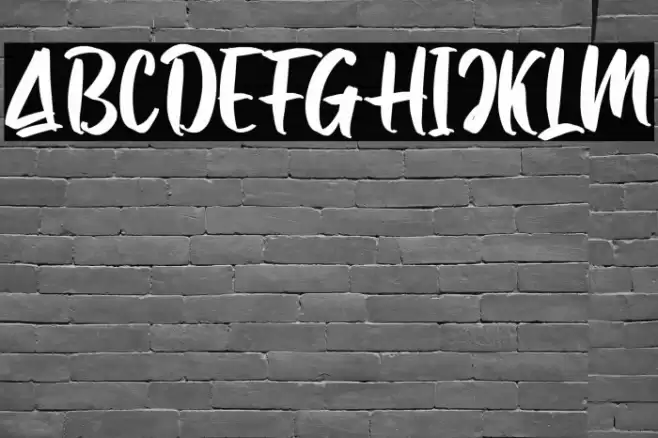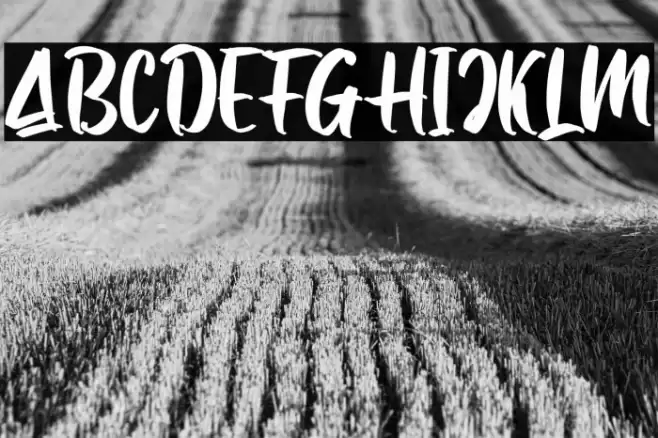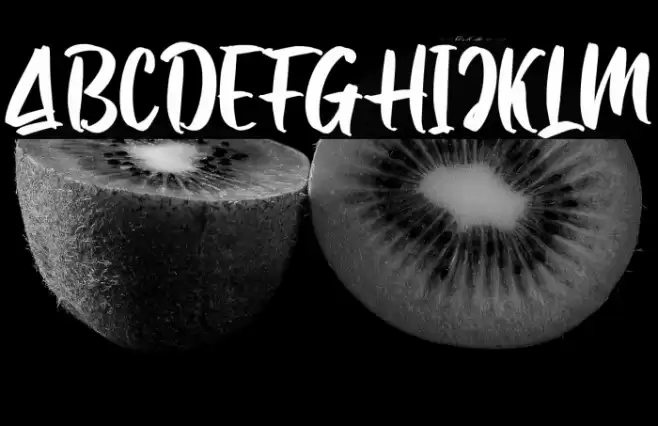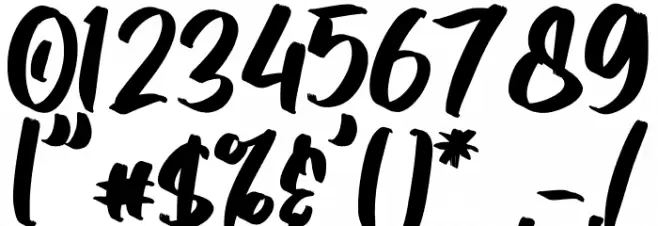
Samuell Solid_DEMO Font
Samuell Solid_DEMO Description
This font features a bold and expressive handwritten style, characterized by its thick strokes and dynamic flow. The letters are crafted with a brush-like appearance, giving them a lively and energetic feel. The uppercase and lowercase letters maintain a consistent style, with a slight slant that adds to the casual and informal aesthetic. The numbers and special characters are equally bold, ensuring readability and visual impact. This font's unique style makes it stand out, perfect for projects that require a personal touch or artistic flair.
A bold, expressive handwritten font with a brush-like appearance from Uncategorized fonts.
- Font: Samuell Solid_DEMO
- Proposed Projects: Ideal for branding, posters, invitations, and social media graphics where a personal and artistic touch is desired.